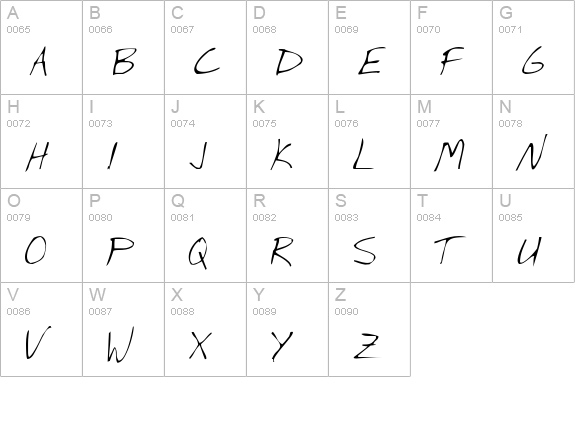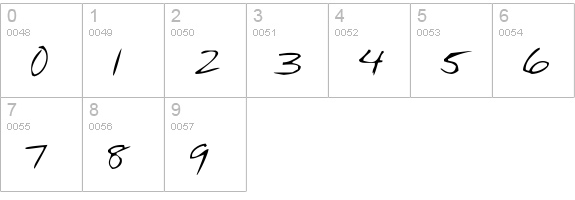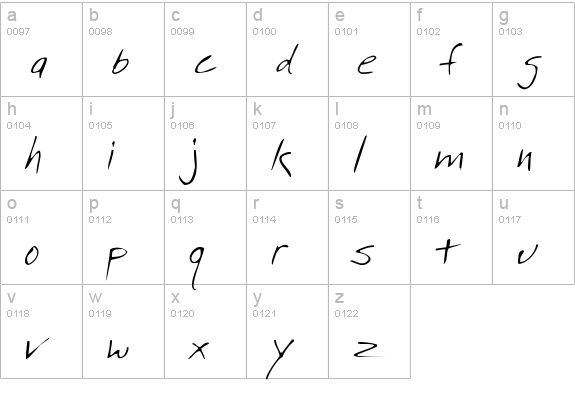
Stan's Hand Font Details
Introducing Stan's Hand, a whimsical and playful font that is sure to bring a touch of fun to your designs. Crafted with care and attention to detail, this font captures the essence of handwritten text with its charming irregularities and organic strokes. With a free-spirited style and a hint of childlike innocence, Stan's Hand is perfect for a variety of creative projects. Whether you're designing greeting cards, invitations, posters, or branding materials, this font will add a delightful and personal touch to your work. What sets Stan's Hand apart is not just its unique design, but also its accessibility. This font is freely available to download at FontsMarket.com, making it a great option for both personal and commercial use. Say goodbye to restrictive licensing fees and hello to creative freedom! So go ahead and let your imagination run wild with Stan's Hand. Embrace its playful energy and let it inspire you to create designs that are truly one-of-a-kind. Download this font today and bring a touch of whimsy to your projects!